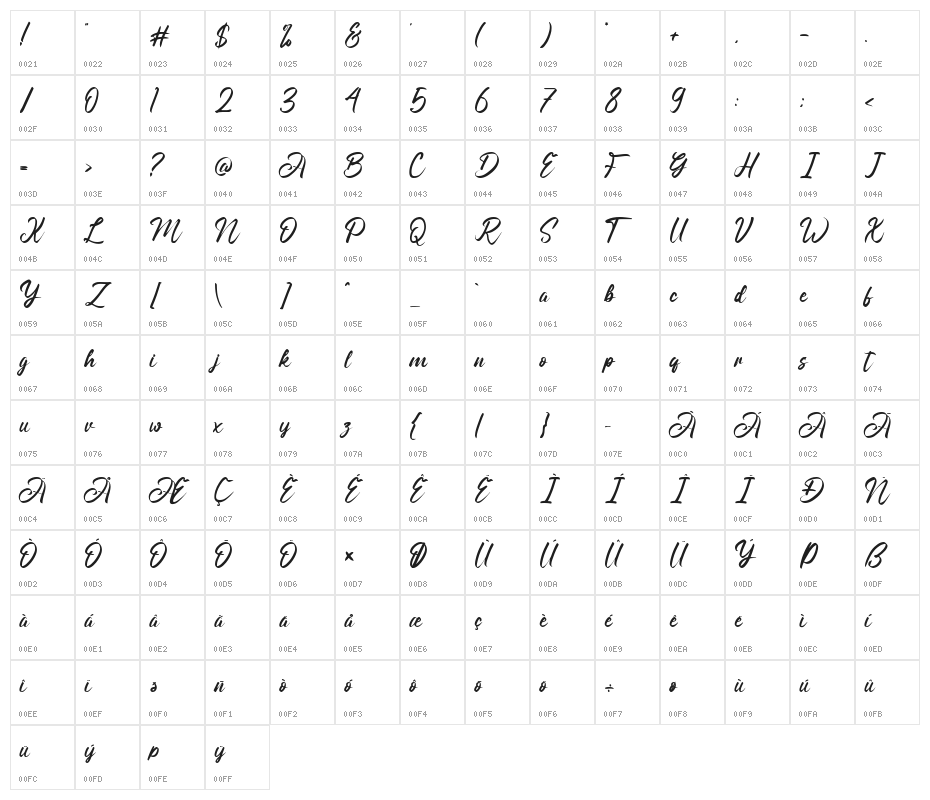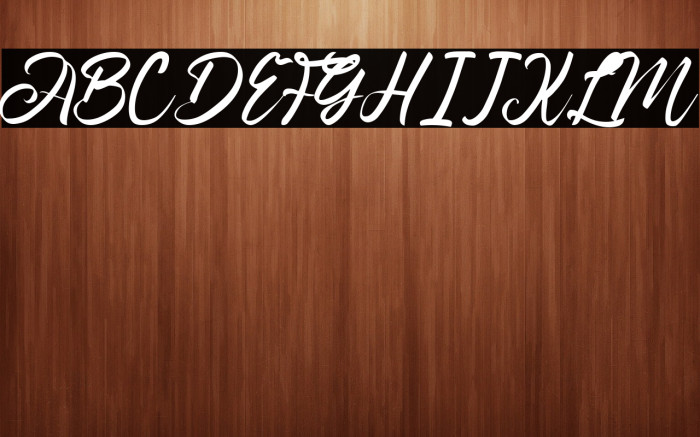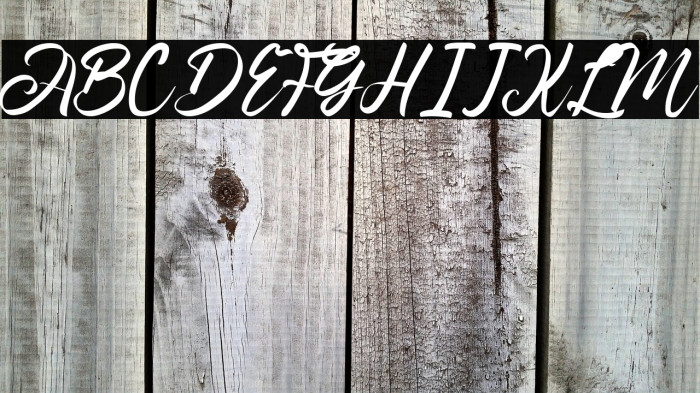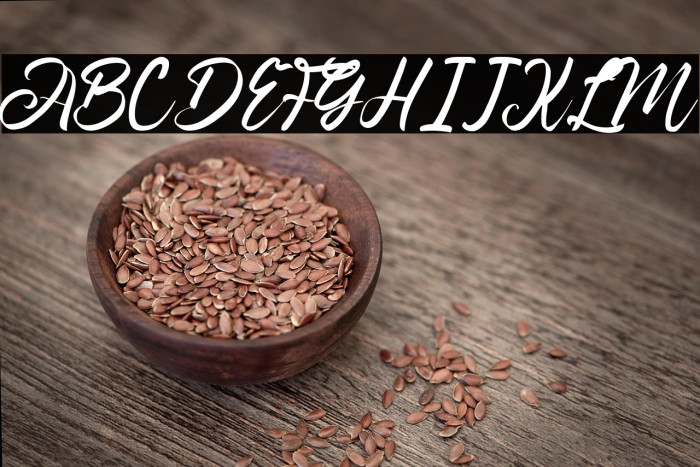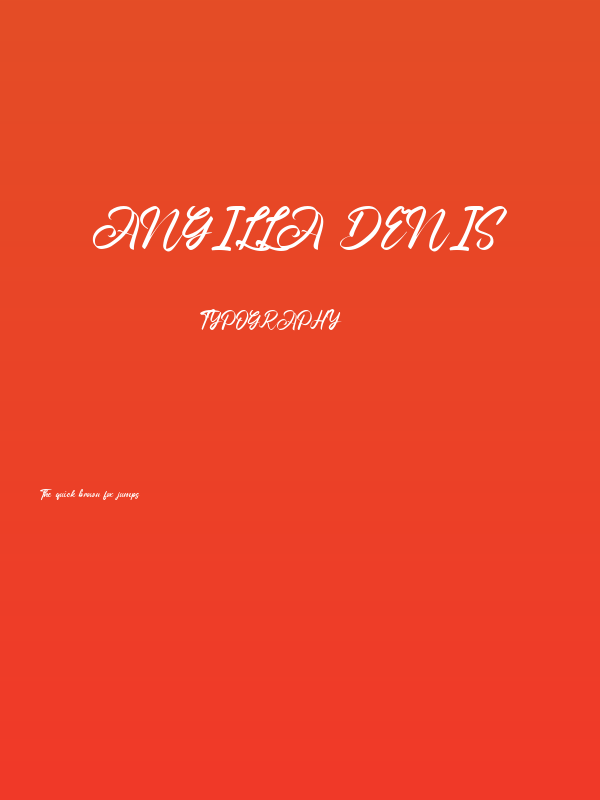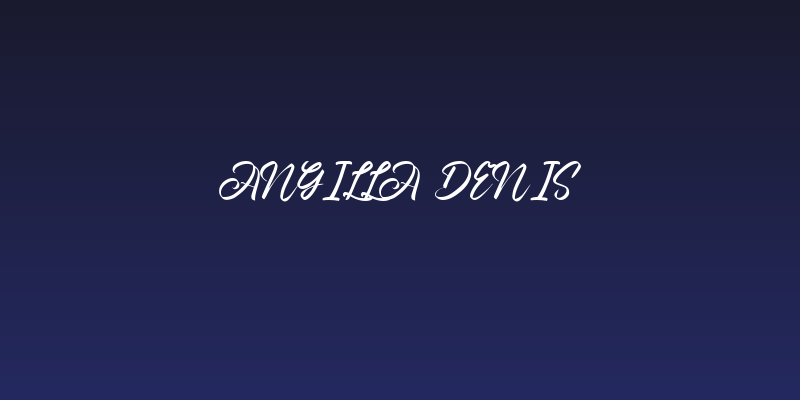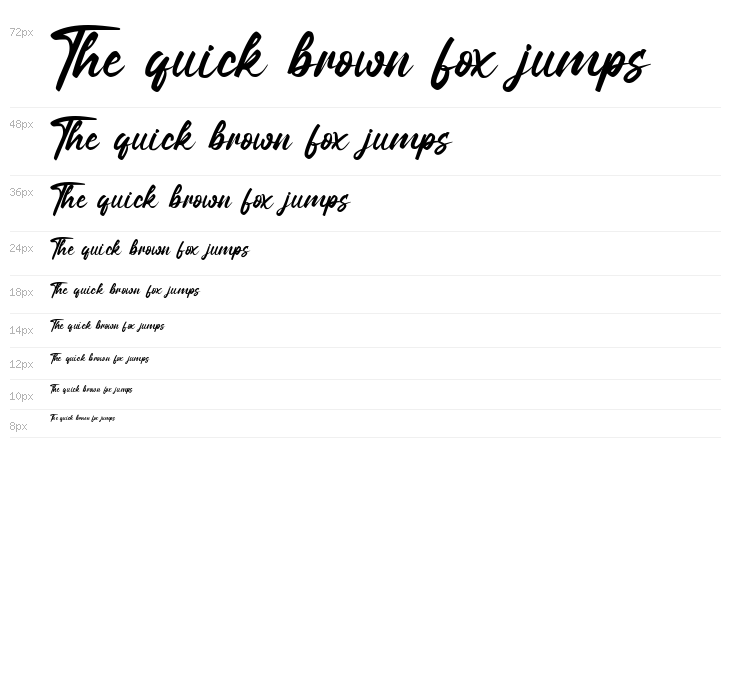
Angilla Denis Font
Angilla Denis Description
This font exudes a classic and elegant script style, characterized by its flowing, cursive letterforms. The uppercase letters are bold and sweeping, with intricate loops and flourishes that give a sense of sophistication and grace. The lowercase letters maintain a consistent style, with smooth connections between characters that enhance readability while preserving the decorative nature. Numbers and special characters are designed to match the overall aesthetic, ensuring a cohesive look across all text. The font's design is both timeless and versatile, making it suitable for a variety of applications where a touch of elegance is desired.
| Proposed Projects | Ideal for wedding invitations, elegant branding, greeting cards, and upscale packaging. |